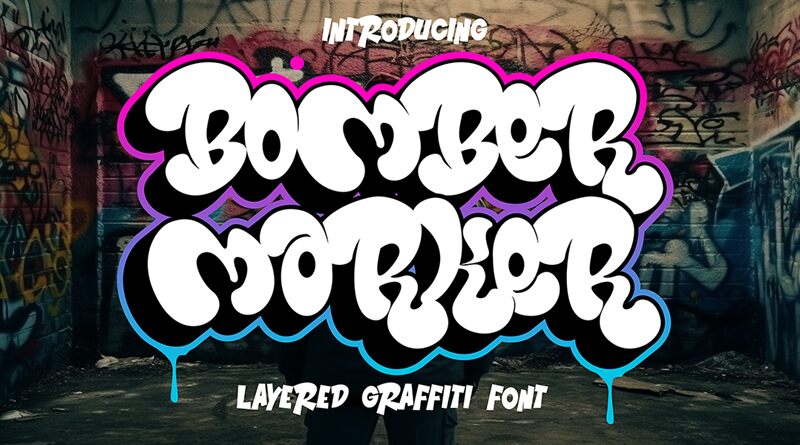
Bomber Marker font family by Cikareotype Studio is a graffiti-inspired free font offering two electrifying styles. Dynamic, vibrant, and rebellious, its eye-catching letter design is vividly expressive and urban. The font is made of funky letters that look like the ones featured in contemporary street art. The font’s organic strokes that make every character have an imperfect finish. Letters in the Bomber Marker font family are either smooth or scribbled for a layered effect. This is a contemporary street art vibe from A to Z.
The energetic, modern, and stylish design of this font makes it a suitable choice for album cover typography, movie title typography, poster design, t-shirt print, book cover design, editorial design, logo design, branding, and even tattoo art. Other possibilities include website headings, social media posts, and banners that require a vibrant urban touch.